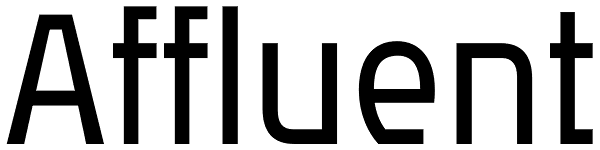
Affluent
Tailor-made for both the big and small screen, Affluent is perfectly readable at all sizes and on any color background. Affluent isn’t your stereotypical on-screen font; it can handle large or small text when you want readability in a contemporary...
Affluent
Affluent Bold
Affluent Bold Italic
Affluent Demi Bold
Affluent Demi Bold Italic
Affluent Italic